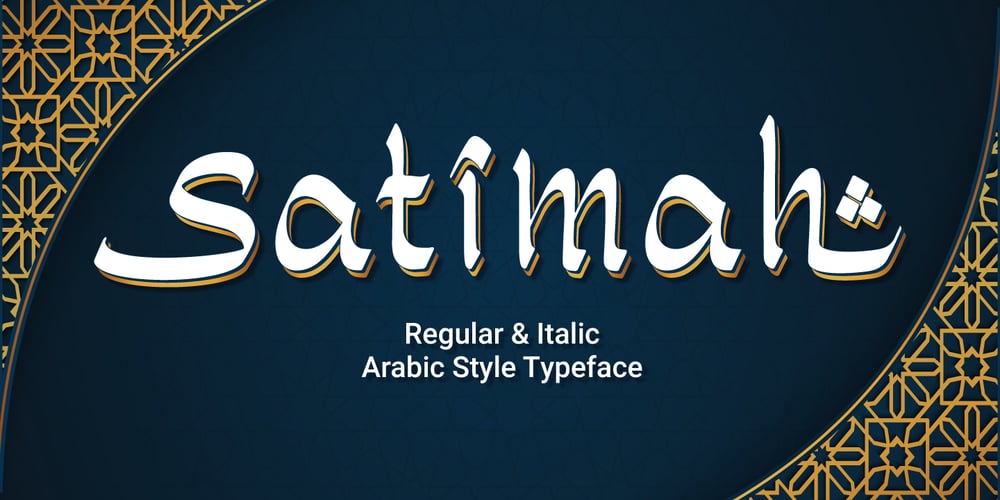
Satimah Font Family was designed by Fadli Ramadhan Iskandar and published by Attype Studio. Satimah contains 2 styles and family package options. Satimah is a stunning Arabic style typeface that brings an elegant and professional look to any design. With its simple yet refined design, this font is perfect for a wide range of projects, from branding to editorial and beyond. The font also comes with stylistic set 1 and 2, as well as stylistic alternates for some characters, giving you even more creative options.Satimah is particularly well-suited for Islamic design and Islamic theme events, thanks to its beautiful calligraphic flourishes and timeless elegance. With both regular and italic versions, this font is versatile enough to be used in a wide range of design applications. And with multilingual support, you can be sure that your message will be communicated clearly and effectively no matter where your audience is located.Features :- Satimah Family Font- Stylistic Alternates- Stylistic Set- Multilingual, US Roman, Latin 1 Support —This Font Support Language:Afrikaans, Albanian,Asu, Basque, Bemba, Bena, Breton, Catalan, Chiga, Cornish, Danish, Dutch, English, Estonian, Faroese, Filipino, Finnish, French, Friulian, Galician, German, Gusii, Indonesian, Irish, Italian, Kabuverdianu, Kalenjin, Kinyarwanda, Luo, Luxembourgish, Luyia, Machame, Makhuwa-Meetto, Makonde, Malagasy, ManxMorisyen, North Ndebele, Norwegian Bokmål, Norwegian Nynorsk, Nyankole, Oromo, Portuguese, Quechua, Romansh, Rombo, Rundi, Rwa, Samburu, Sango, Sangu, Scottish Gaelic, Sena, Shambala, Shona, Soga, Somali, Spanish, Swahili, Swedish, Swiss German, Taita, Teso, Uzbek (Latin), Volapük, Vunjo, Zulu,Hope you enjoy with our font!Attype Studio